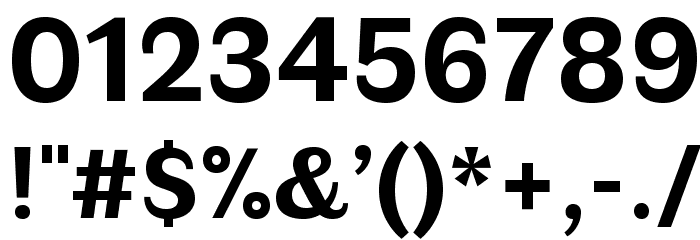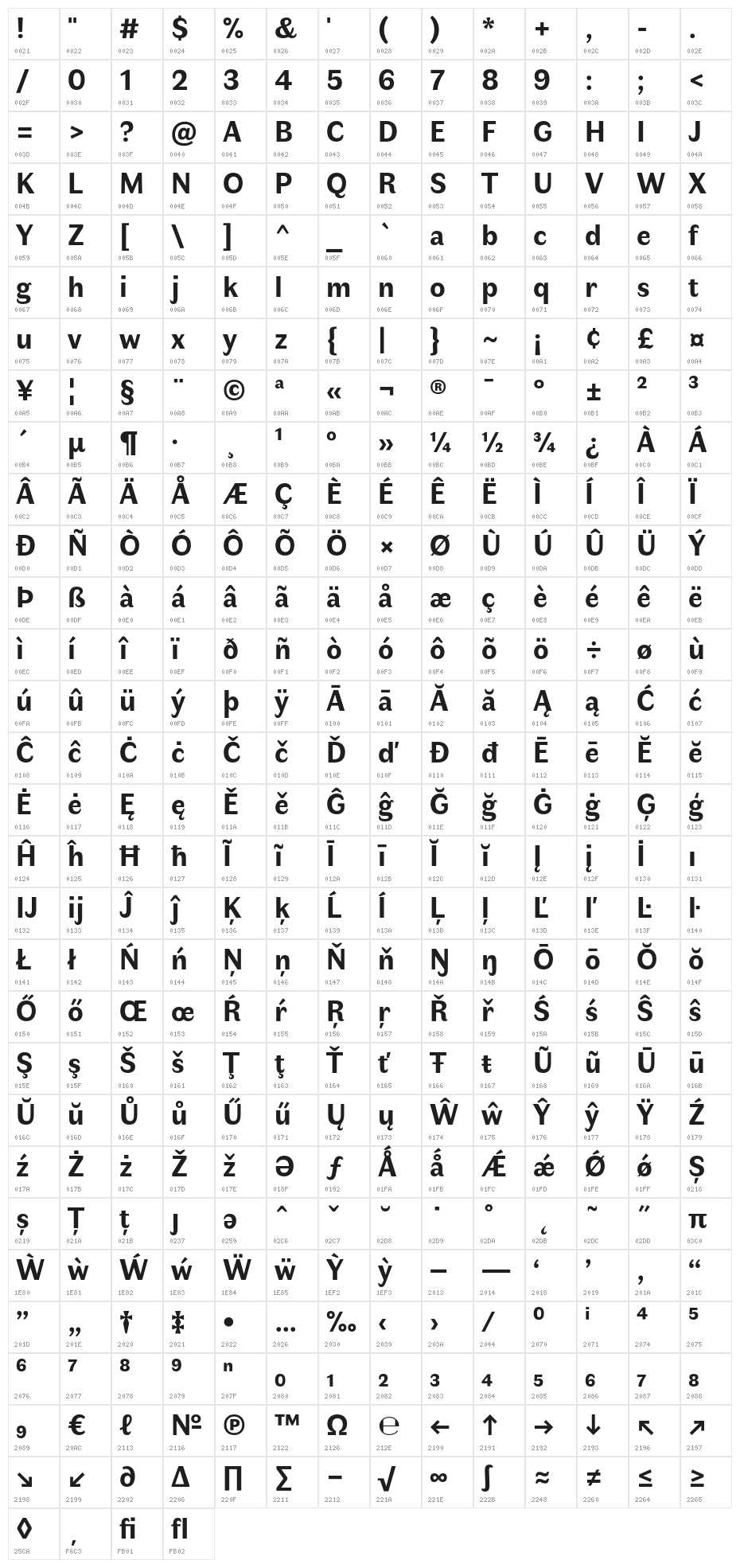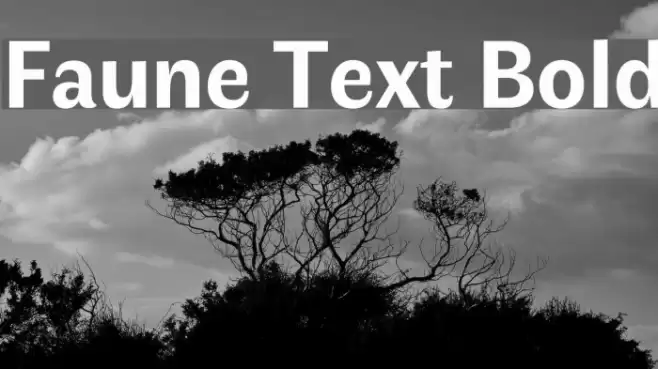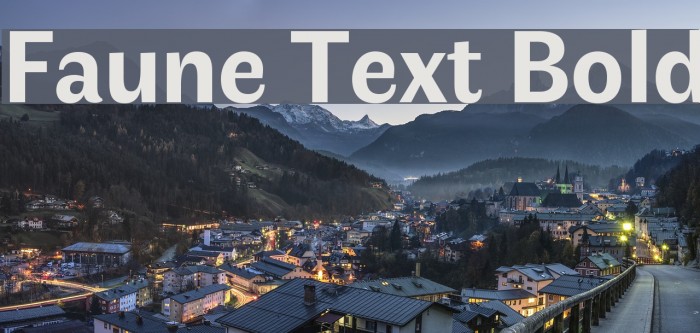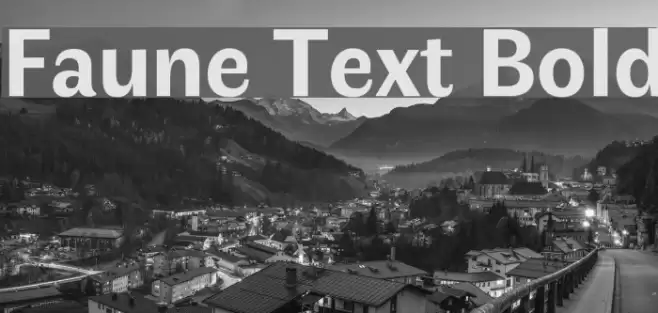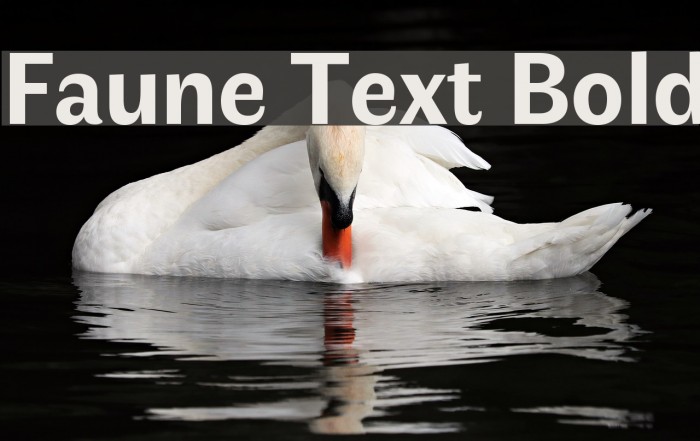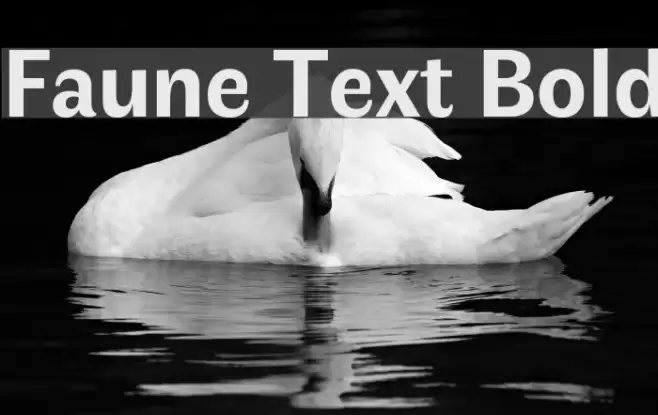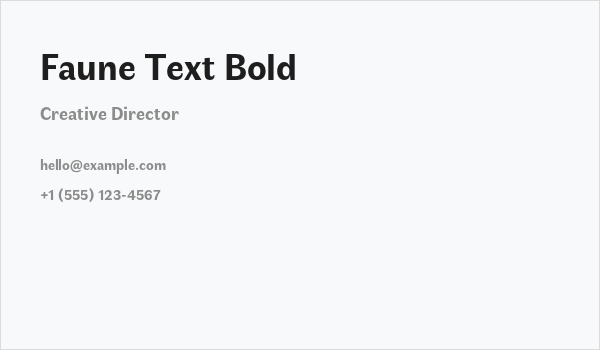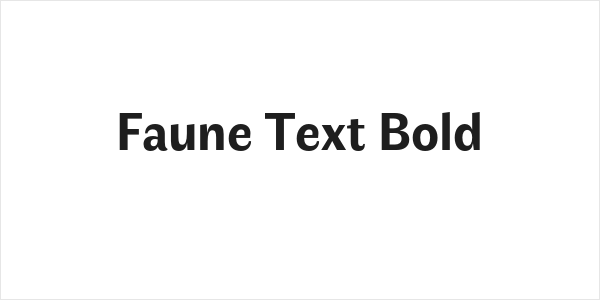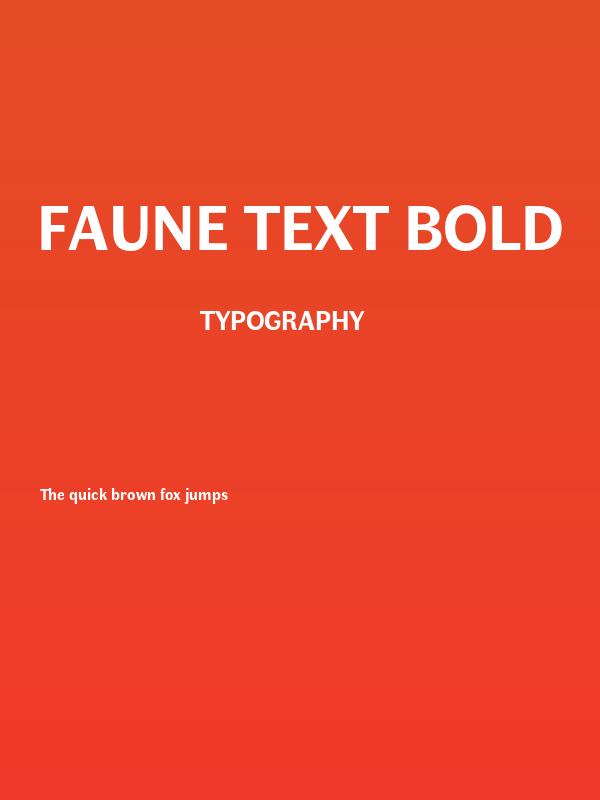
Faune Text Bold Font
Faune Text Bold Description
This font features a bold and robust design, characterized by its strong and confident letterforms. The uppercase letters are well-proportioned and exhibit a modern aesthetic, while the lowercase letters maintain a consistent style that complements the overall boldness. The numerals are clear and easily readable, making them suitable for various applications. Special characters are distinct and harmonize with the rest of the typeface, ensuring versatility in design projects. The font's clean lines and uniform stroke widths contribute to its legibility and make it a great choice for impactful headlines and branding.